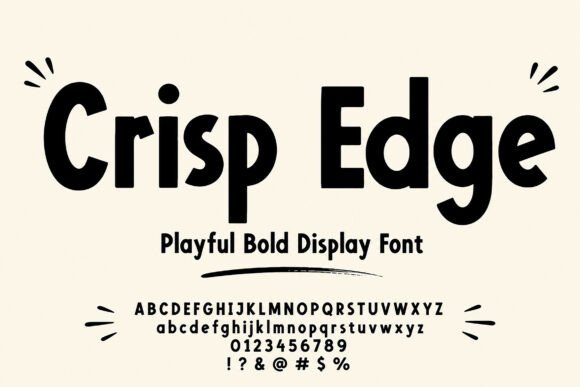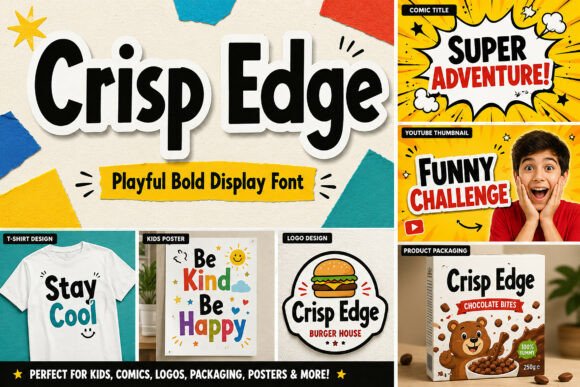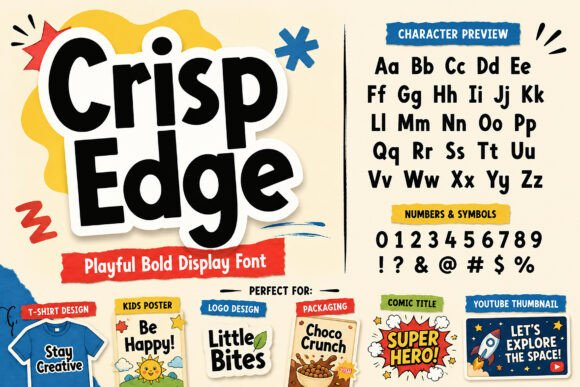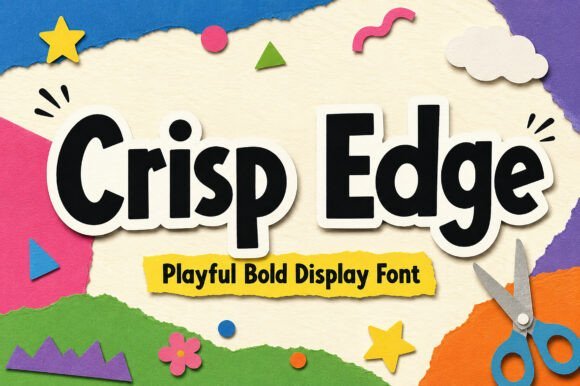
Introduction to Crisp Edge Font
Inject a burst of youthful creativity into your graphic layouts with Crisp Edge, a playful bold display font bursting with handcrafted character.
This high-impact typeface features thick sans-serif hulls styled with clean, sharp angles and slightly geometric cuts that perfectly mirror the raw charm of construction paper cutouts Outlined with a soft white sticker contour and deep dimensional drop shadows, its friendly layout bounces with an energetic, irregular baseline.
Key Features of Crisp Edge Font
Why Choose Crisp Edge Font?
Crisp Edge Font offers exceptional quality and versatility, making it a valuable addition to your design toolkit. Whether you’re creating for personal projects or commercial use, Crisp Edge Font delivers professional results.